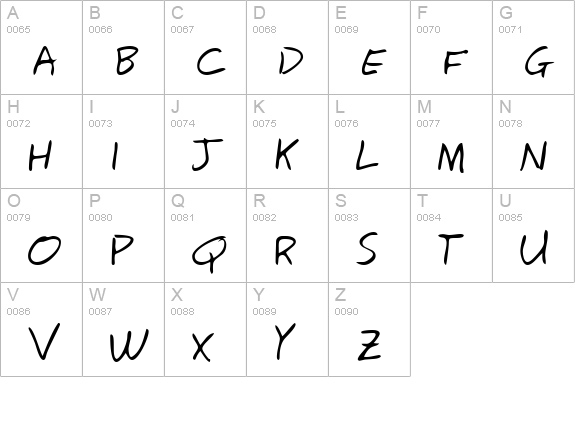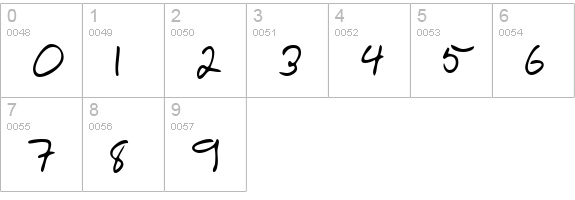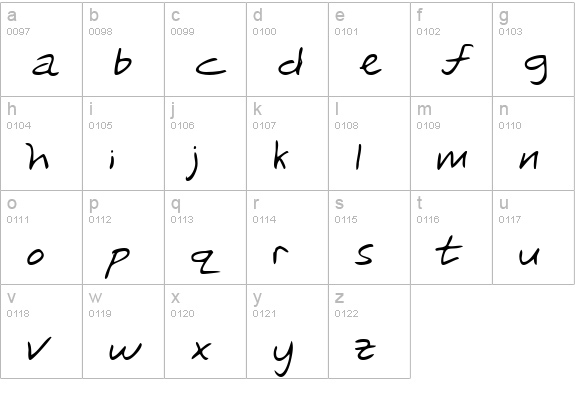
RickysHand Regular Font Details
RickysHand Regular is the standard, neutral variant in the RickysHand typeface family \xE2\x80\x94 well suited to general body text, paragraphs, and standard typographic work.
Introducing RickysHand Regular, a charming and versatile font that adds a touch of whimsy to any project. With its playful curves and distinctive handwritten style, this font is perfect for adding a personal and unique touch to invitations, greeting cards, logos, and more. RickysHand Regular is not only visually appealing, but it is also incredibly easy to read, making it suitable for a wide range of applications. Its tall and elegant letterforms effortlessly capture attention while maintaining legibility, ensuring that your message is conveyed with clarity and style. One of the best features of RickysHand Regular is that it is freely available to download at FontsMarket.com. This means that you can enhance your designs with this delightful font without any additional cost. Whether you are a professional designer or a hobbyist, you can enjoy the benefits of this high-quality font without breaking the bank. With RickysHand Regular, you have the freedom to express your creativity without limitations. From invitations to branding materials, this font will effortlessly elevate your designs and make them stand out from the crowd. Its versatility ensures that it can be used in a variety of contexts, from elegant and sophisticated to fun and whimsical. So why wait? Explore the possibilities that RickysHand Regular brings to your designs. Download it for free at FontsMarket.com and let your creativity soar. With this font, you have the power to create captivating and memorable designs that leave a lasting impression.